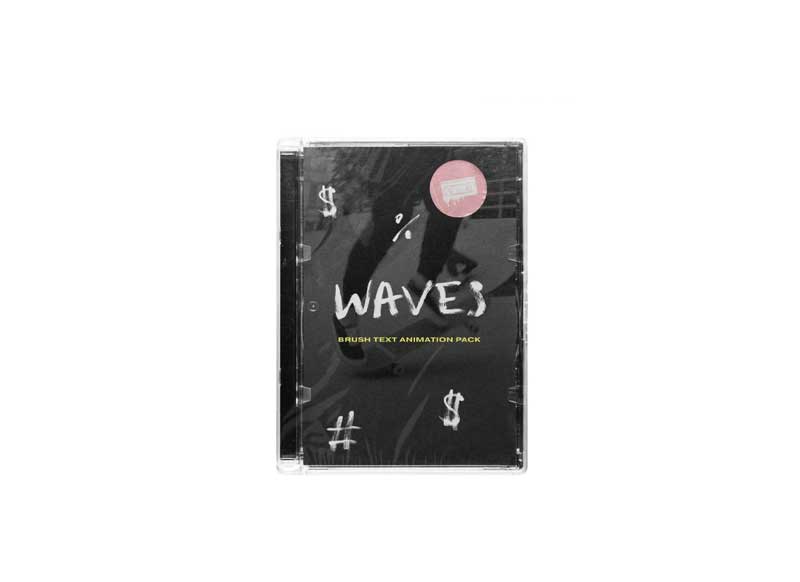
Video Milkshake WAVES – BRUSH ANIMATED FONT PACK
The raw look of brushed text created from authentic scans – this Brush Text Animation Pack was scanned frame by frame to capture every groove of ink – while matching perfectly to a digital workflow. Offered in high-quality ProRes 4444, this pack offers one of the most accurate looks on the market for the art-form.